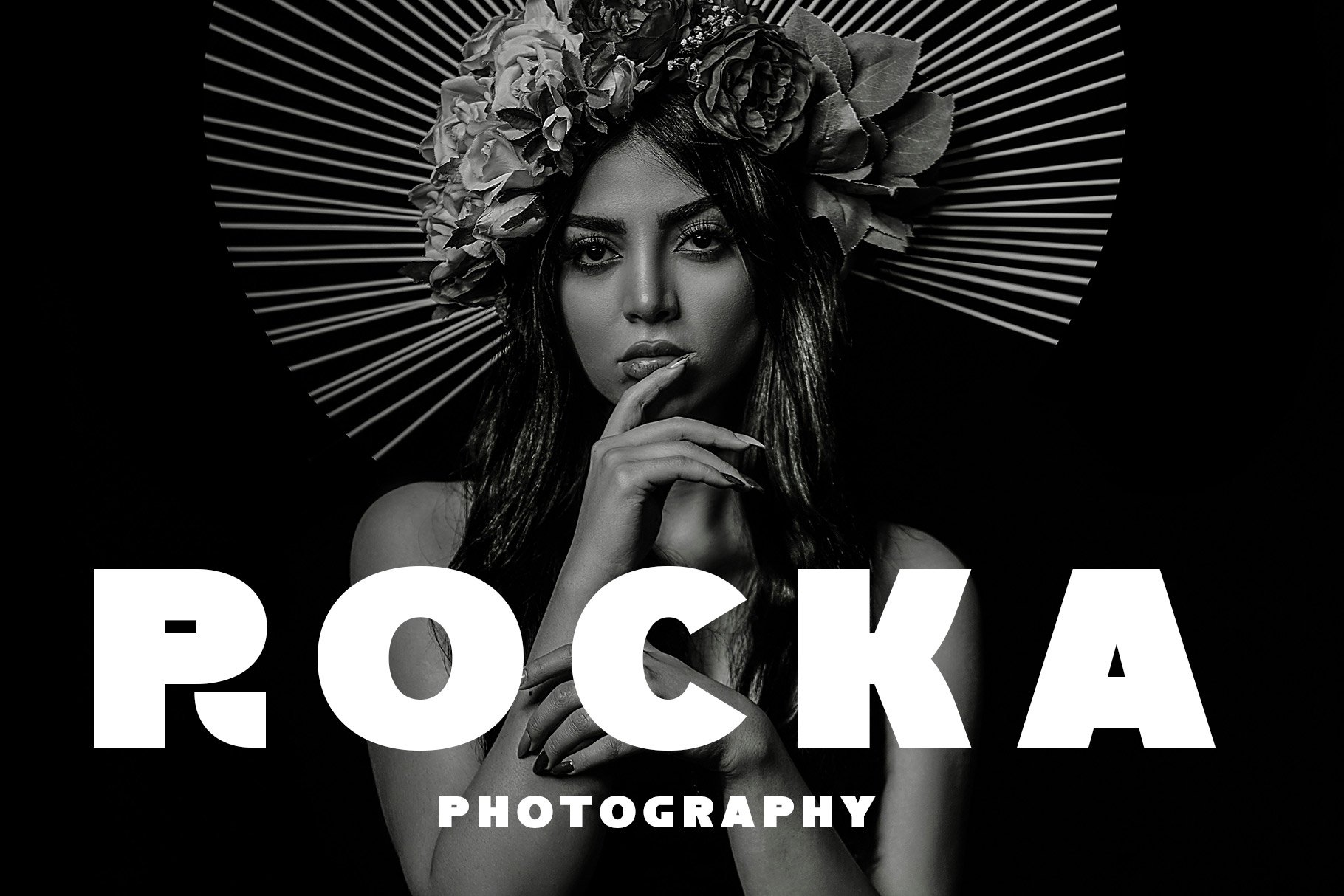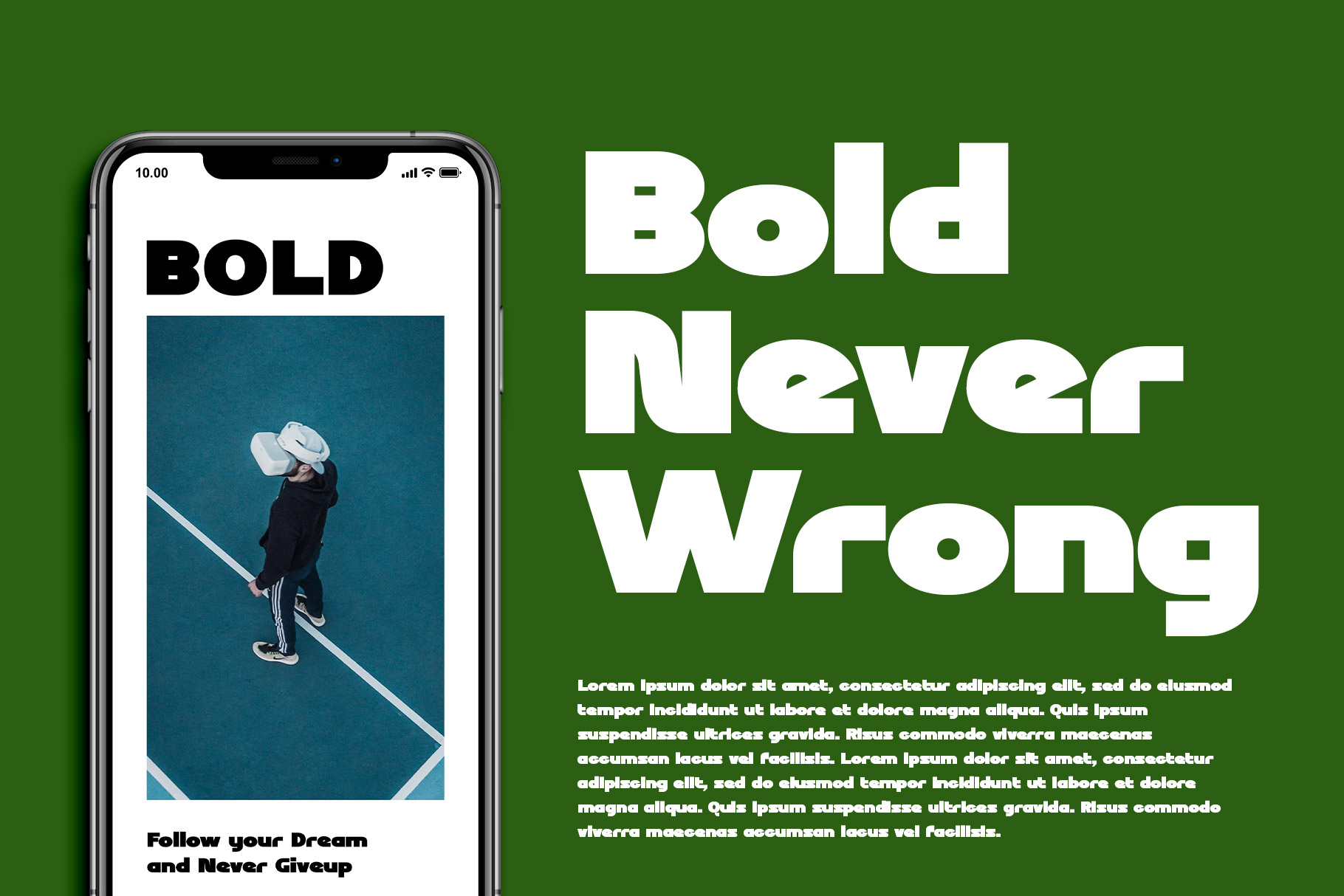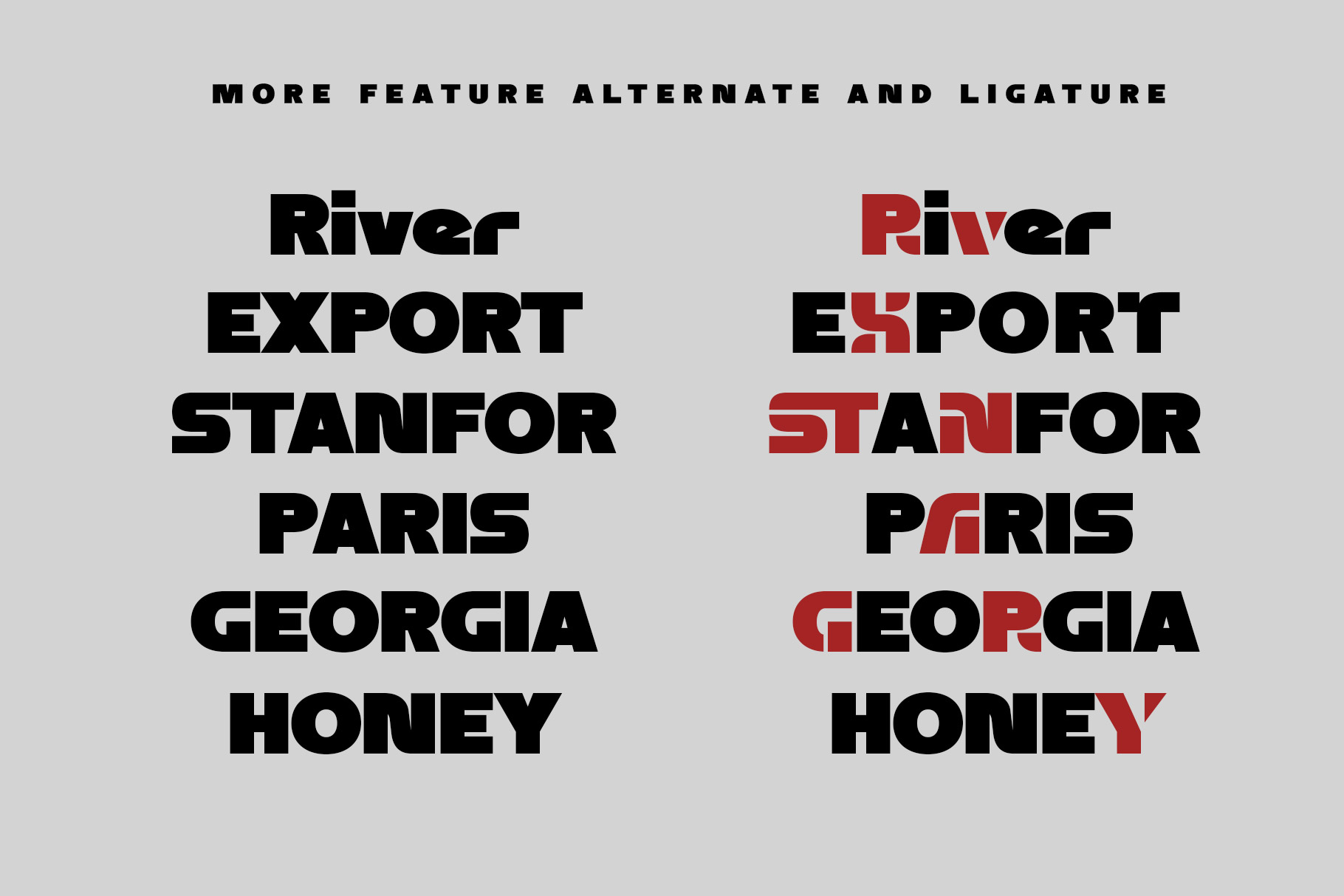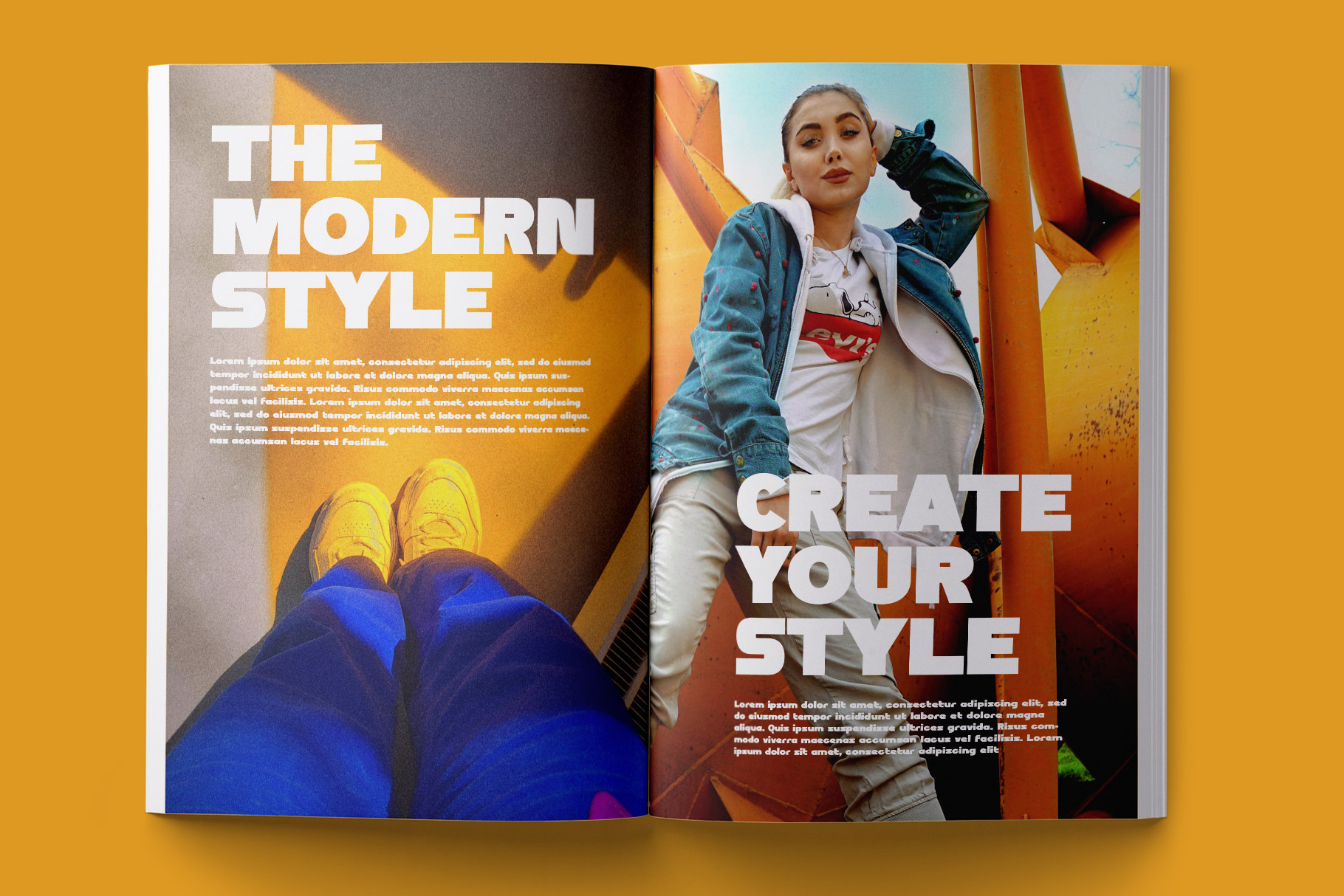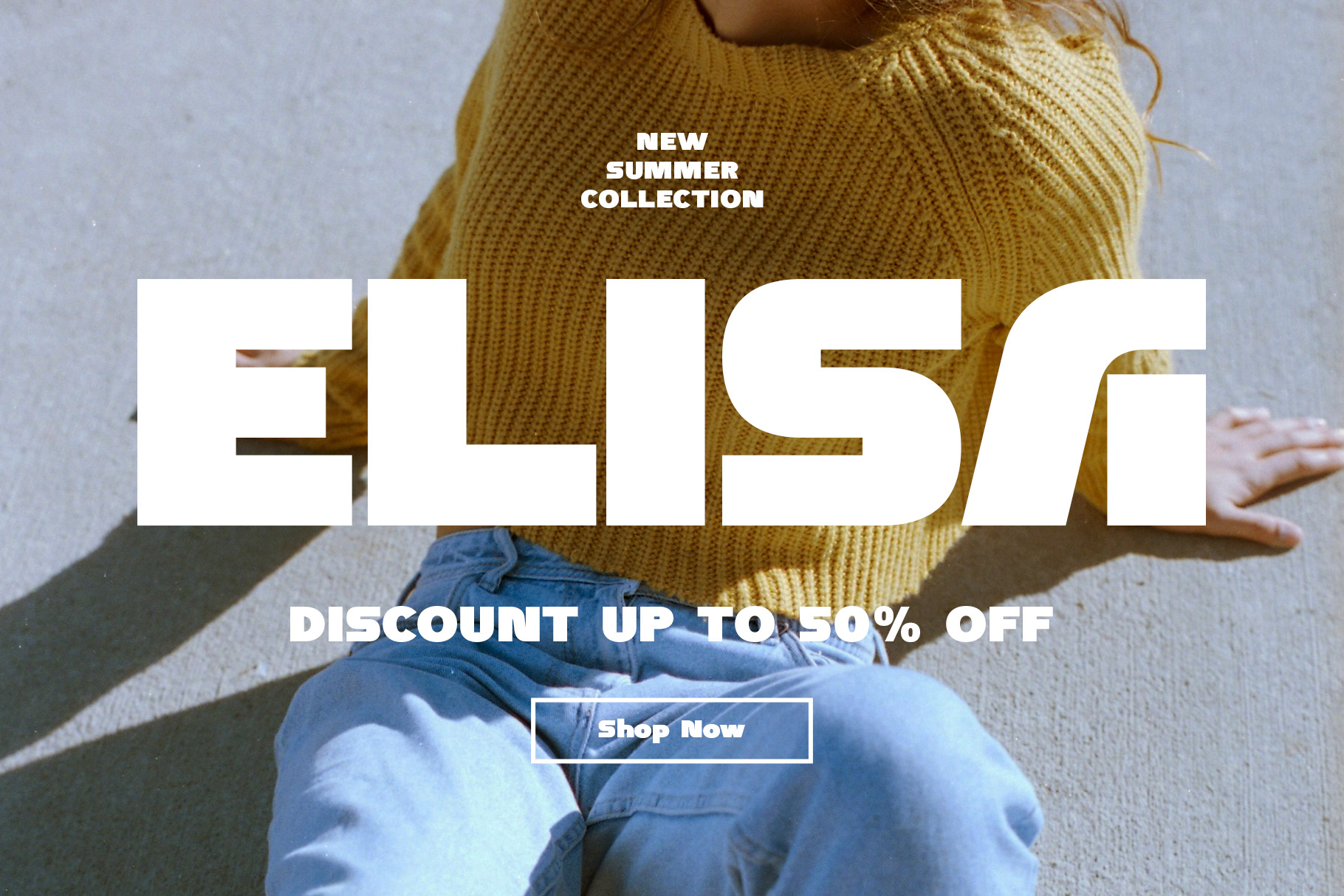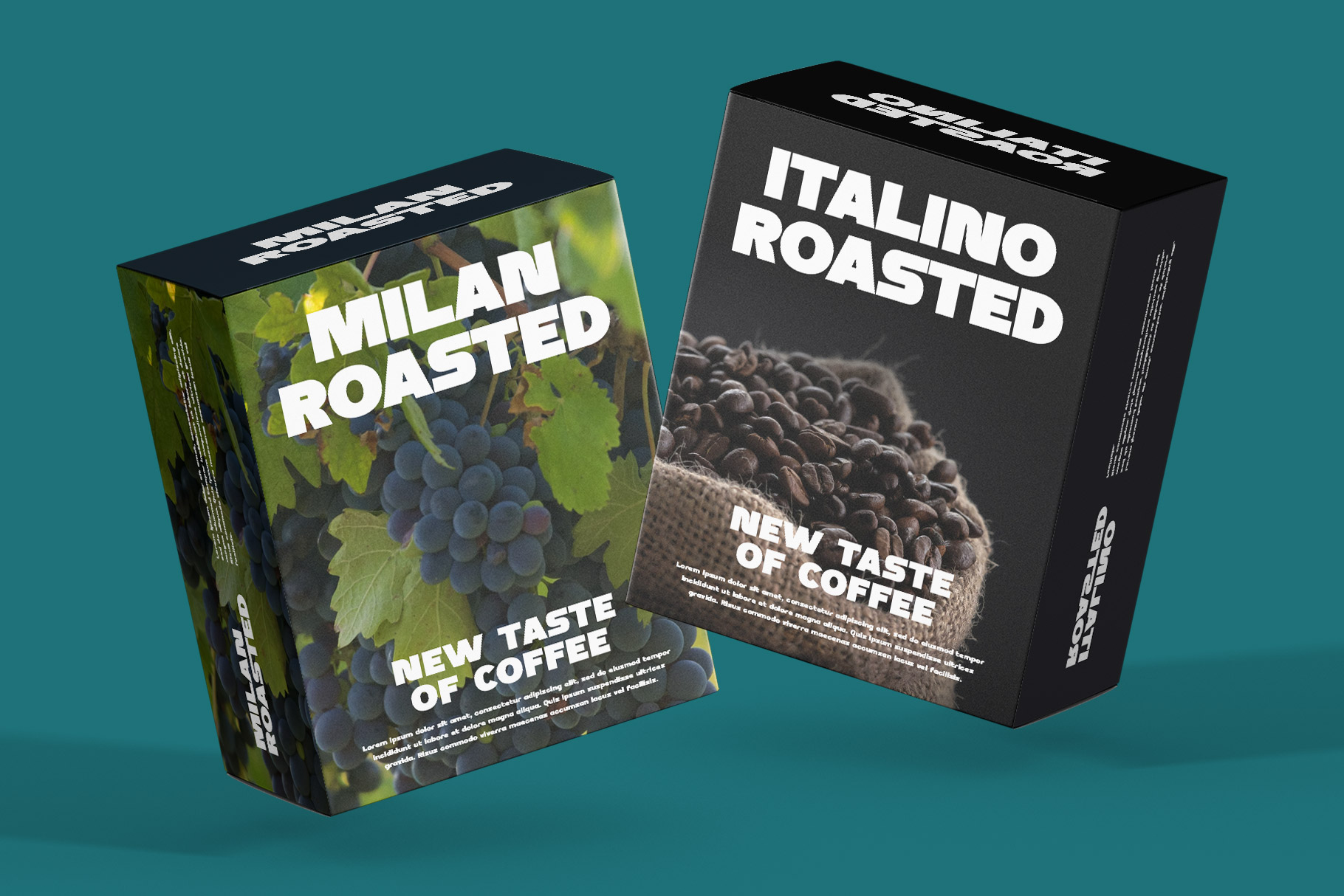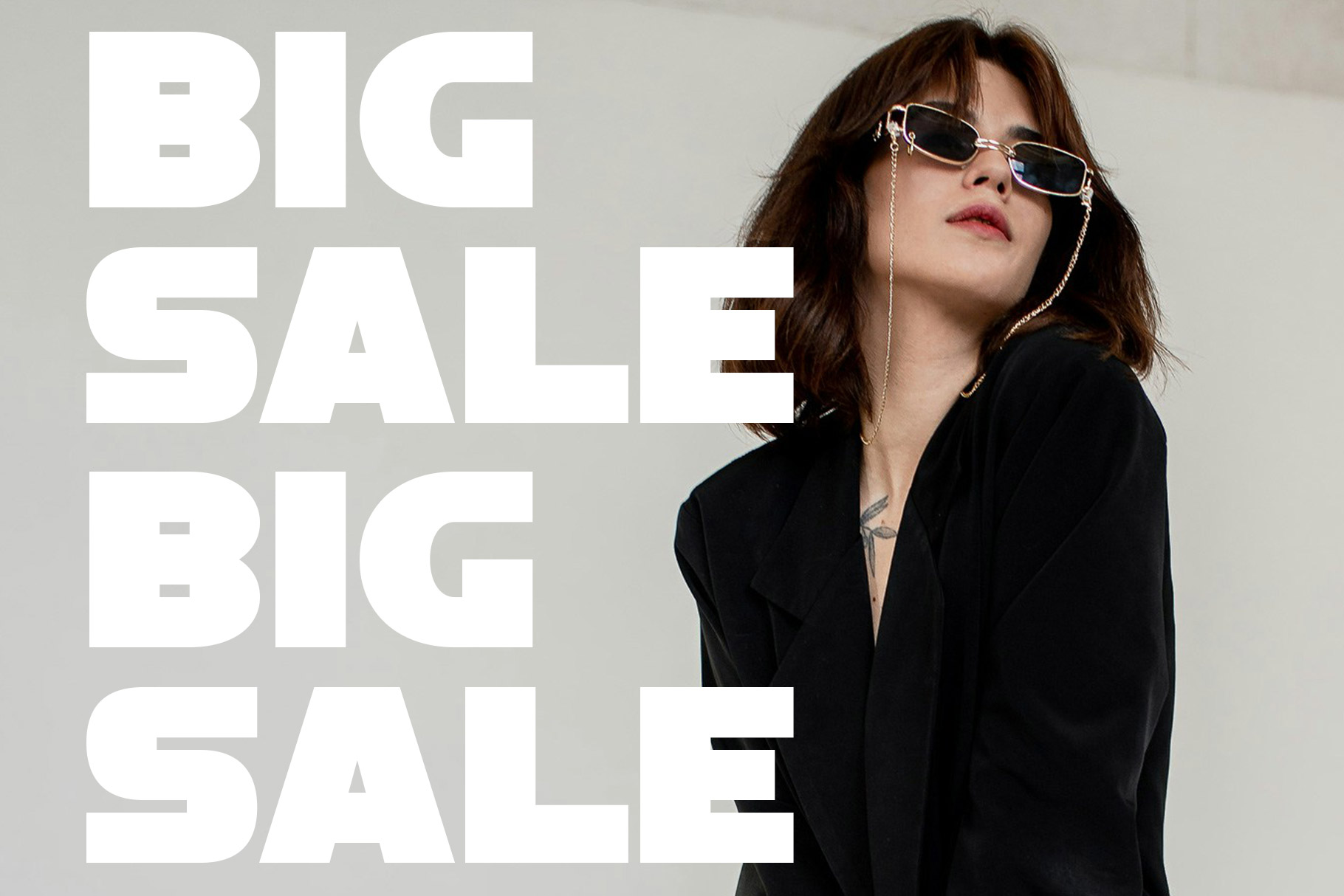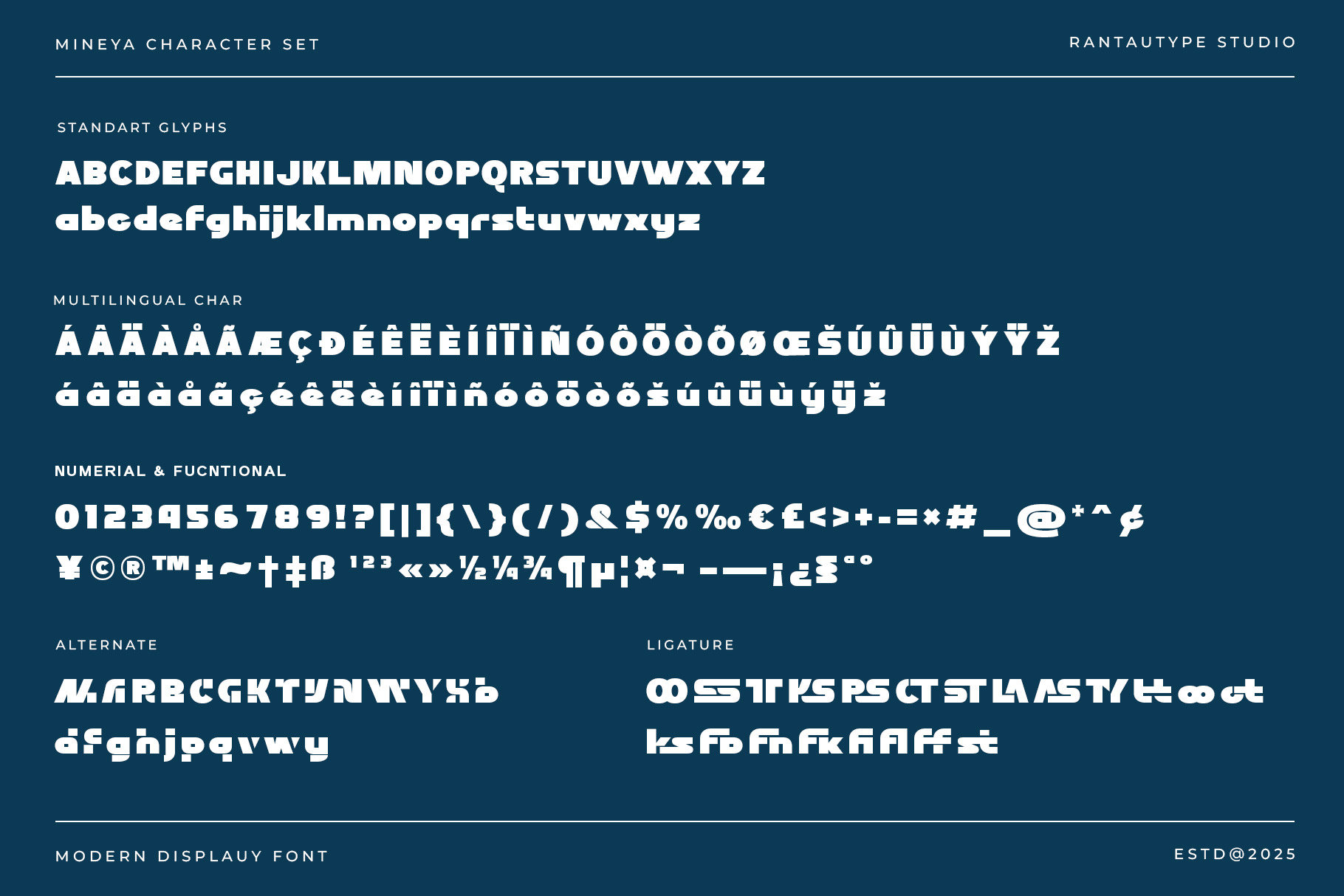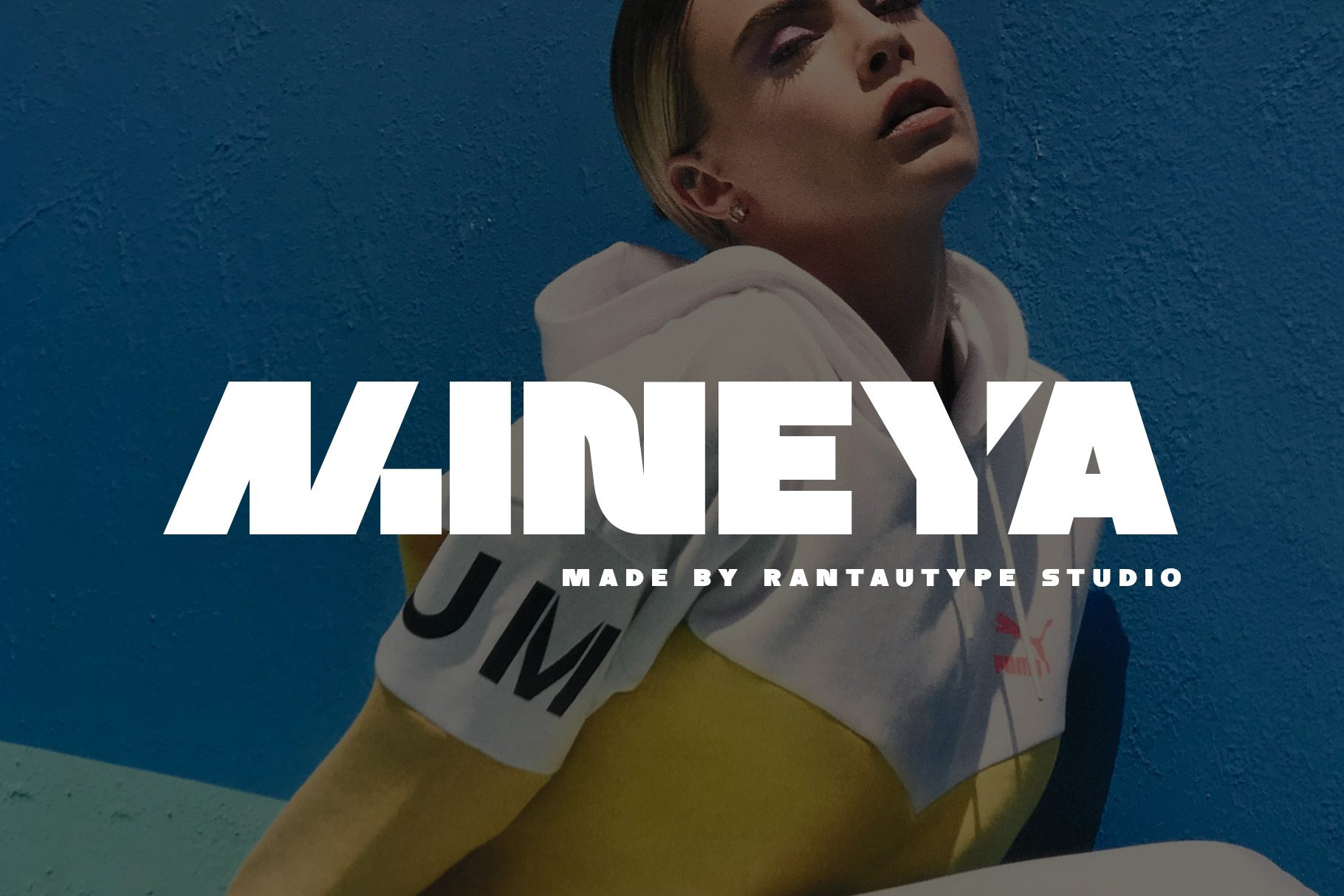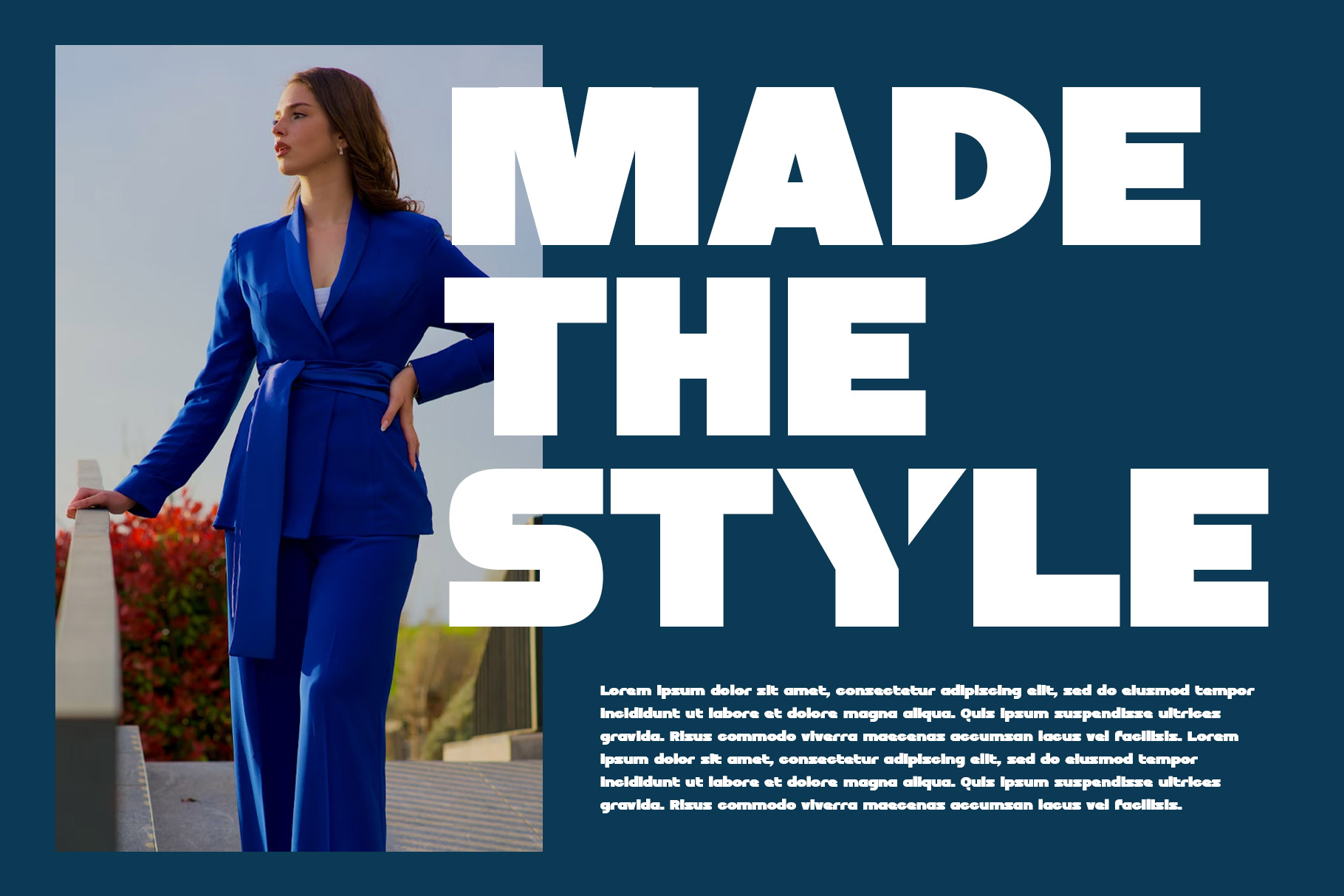
Mineya Bold Sans Serif Font
Mineya is bold sans serif font embodies strength, clarity, and modern appeal. With its clean lines and lack of decorative strokes, it delivers a powerful visual impact ideal for headlines, branding, and digital interfaces. The bold weight enhances readability and draws attention, making messages feel confident and assertive.
Mineya is a perfectly choice for any creative endeavor, lifestyle design such as logotype, advertisements, watermark on photography, stationery, branding project, display and magazine, invitation, corporate brand, product design, label, business project and many other project with modern touch.